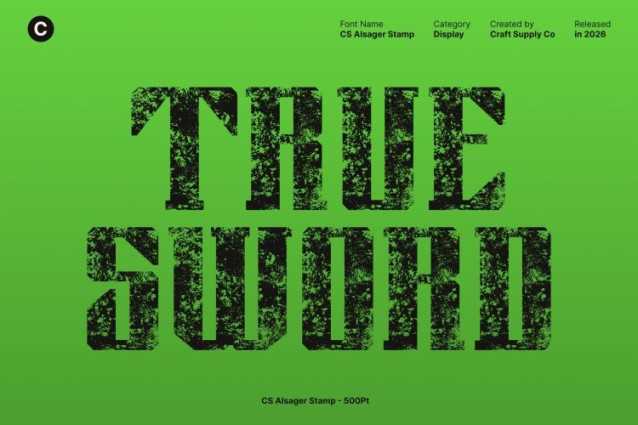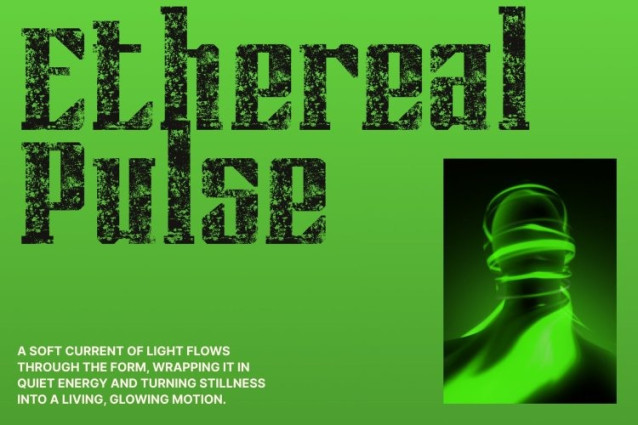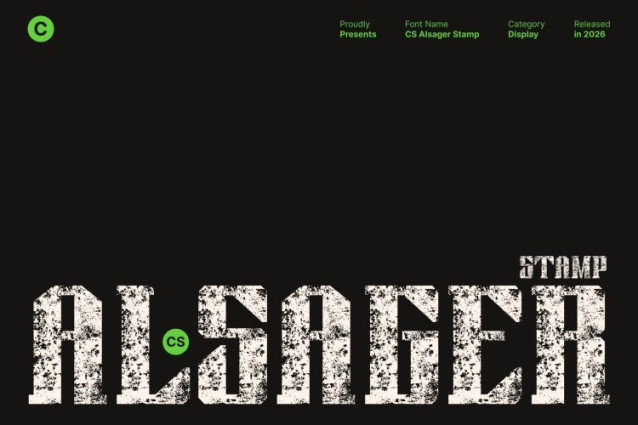
CS Alsager Stamp Font
CS Alsager Stamp Font This is an industrial display font designed to express strength, control, and technical authority. Built with bold construction and sharp serif details, its mechanical structure feels solid and commanding. The stamped texture adds subtle wear and grit, introducing a vintage-industrial character that gives the font a raw, authentic presence.
Structured Forms Built for Visual Authority
The font’s structured anatomy delivers a powerful and engineered appearance. Strong vertical strokes, firm serifs, and disciplined proportions create a sense of stability and force. Enhanced by the stamp effect, these rigid forms gain depth and personality, making the font feel tactile, bold, and visually assertive.
Futuristic Precision with a Rugged Edge
Blending futuristic precision with industrial toughness, this font communicates innovation, efficiency, and progress. Its clean geometry ensures clarity, while the aged stamped texture softens the rigidity with an artistic, timeworn edge. This contrast creates a font that feels both forward-looking and rooted in industrial heritage.
Perfect for Modern Branding and Impactful Headlines
Ideal for modern branding, posters, editorial layouts, and bold headlines, this font thrives in projects that demand attention and authority. Its combination of technical precision and vintage industrial texture makes it perfect for urban themes, tech-forward brands, industrial products, and powerful visual campaigns—delivering a memorable typographic impact that feels strong, distinctive, and enduring.